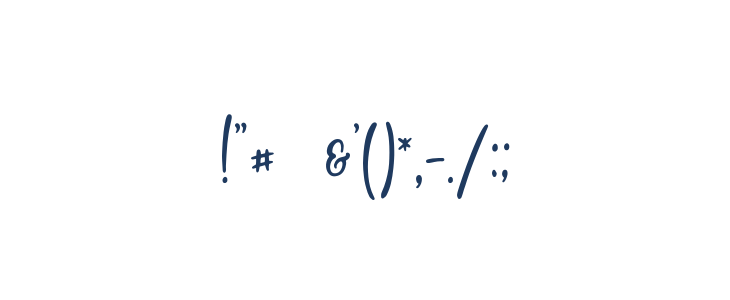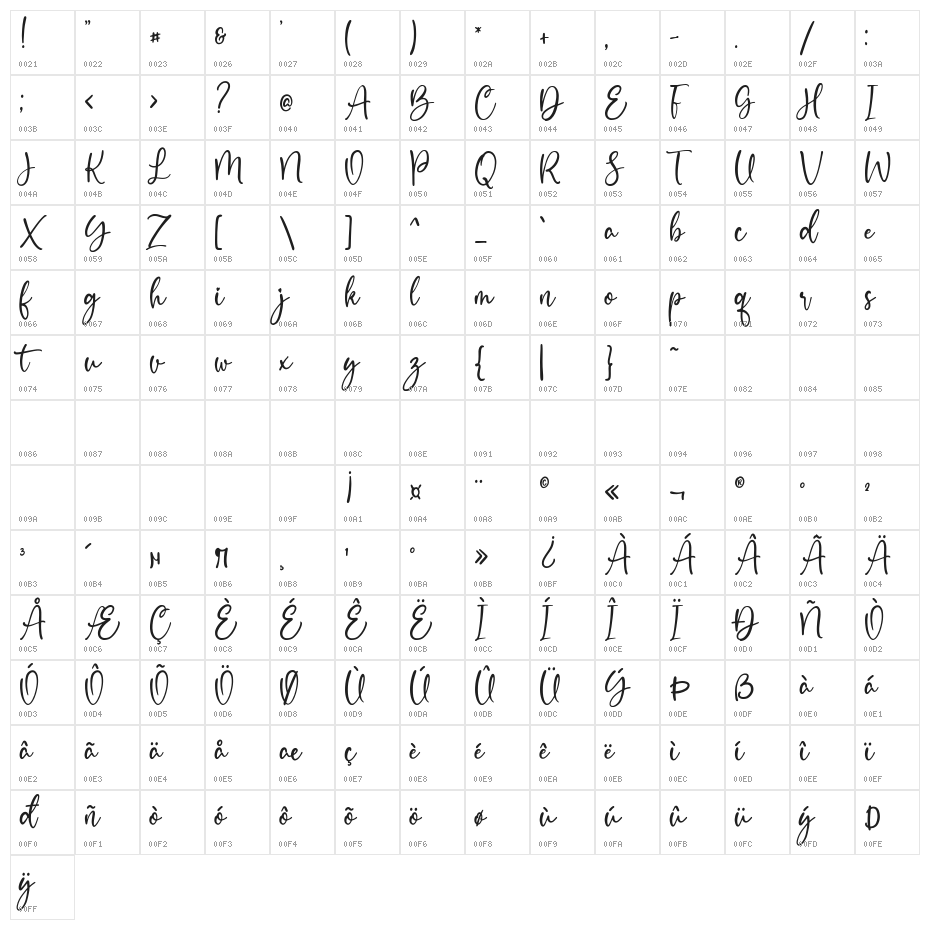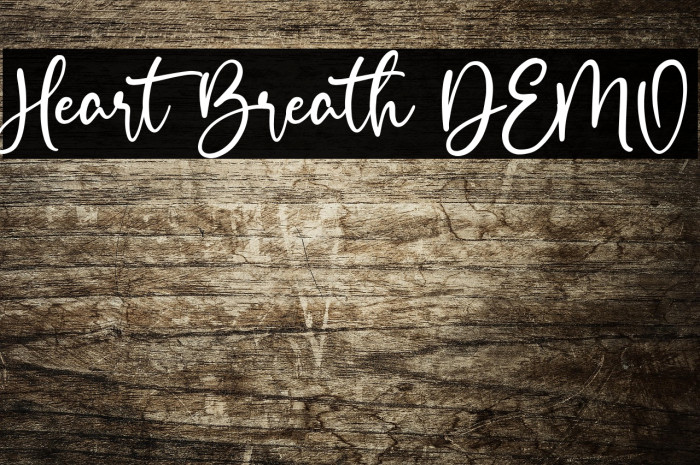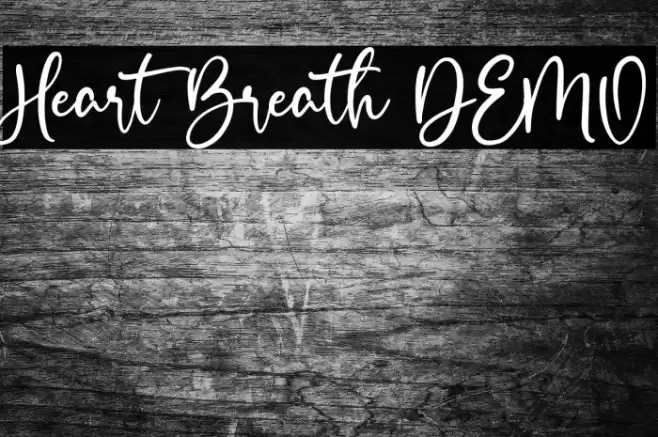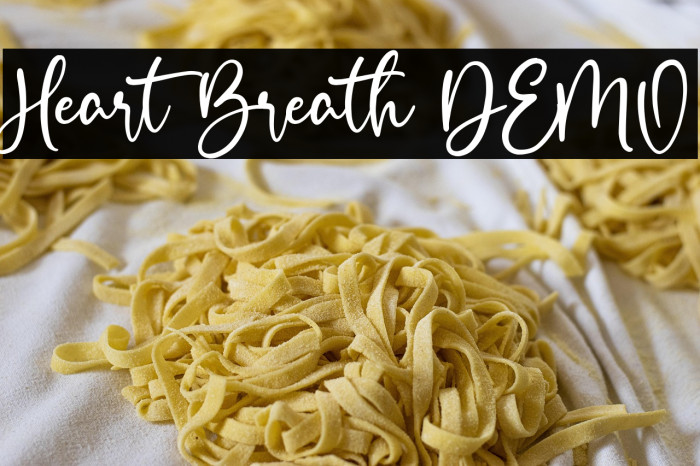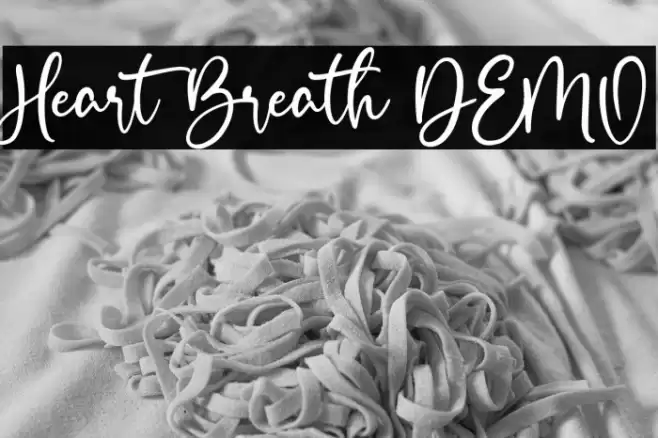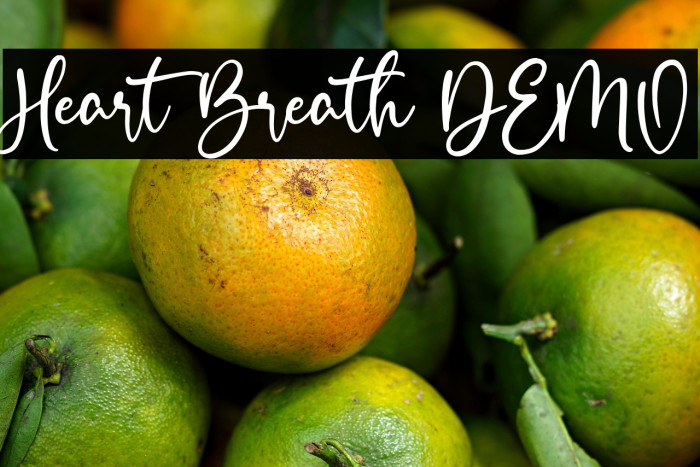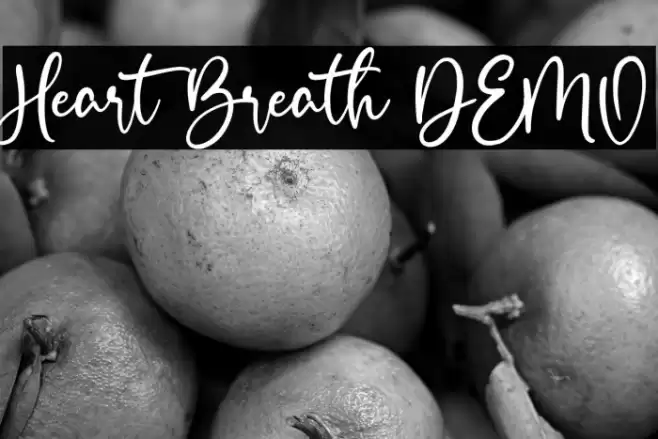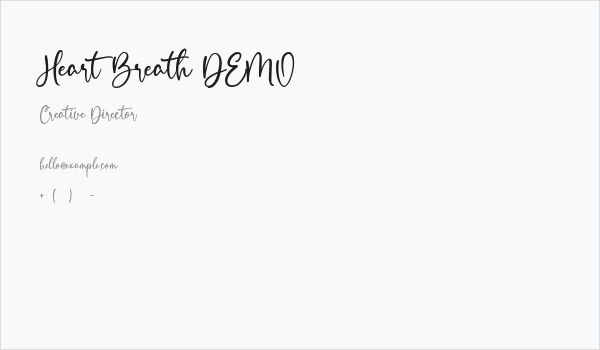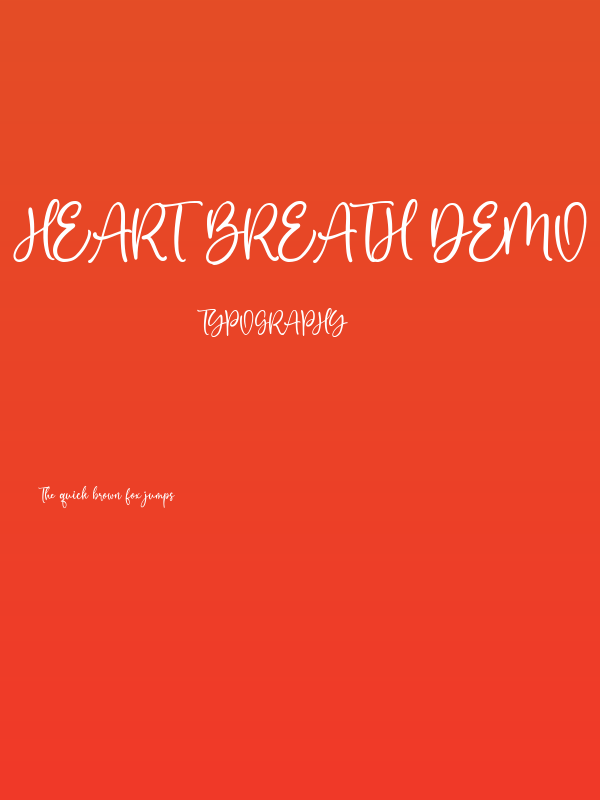
Heart Breath DEMO Font
Heart Breath DEMO Description
This font features a playful and elegant script style with a handwritten appearance. The letters are fluid and connected, giving a sense of movement and personality. The uppercase letters are bold and prominent, while the lowercase letters maintain a consistent flow with occasional loops and flourishes. The numbers and special characters complement the overall style, adding versatility to its use. The font's design is both modern and whimsical, making it suitable for creative projects that require a personal touch.
| Overall Style | Modern, Whimsical |
| Proposed Projects | Ideal for wedding invitations, greeting cards, branding projects, and social media graphics. |